Book of the Month (June 2024): “New Design Guide: Design of Japanese Language”
Today, I would like to introduce “New Design Guide: Design of Japanese Language,” written by Yasuhito Nagahara.
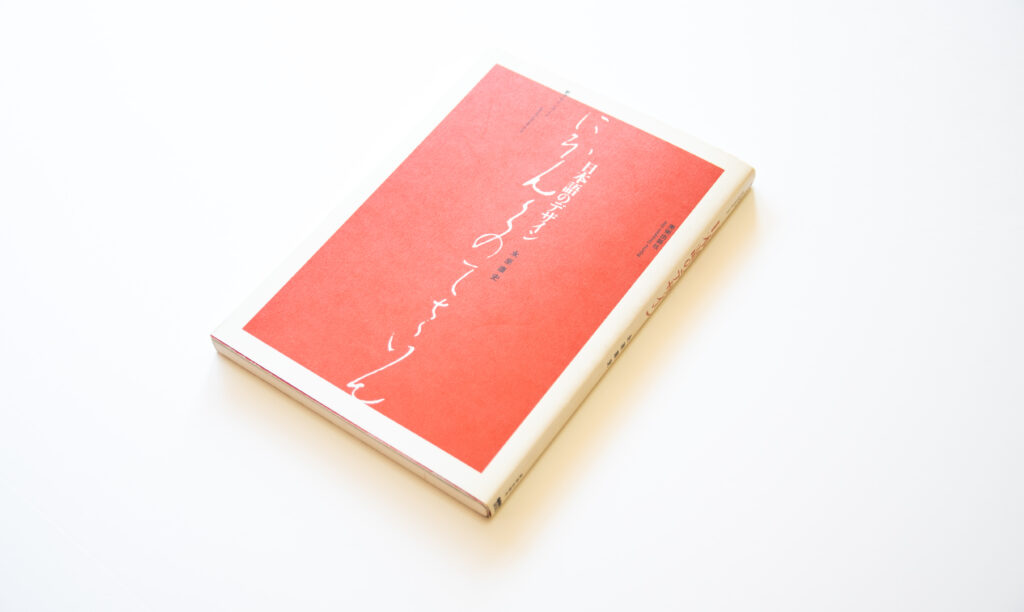
This book teaches us the design behind Japanese language and its flow to the present day. From the beginning, when there were no characters for Japanese, onwards, the content of this book studies Japanese from various perspective including typeface, text content, paper composition, readership, and printing techniques.
What I found interesting as a person who lives in the present and doesn’t have particular sense, is the close relationship between typeface and content. The book indicates that content related to politics and religion is written in block style, and content related to art, literature, and lifestyle is written in cursive style. The abolishment of using different styles for different purposes and the detailed transition to the current typesetting of Mincho typeface and Gothic typeface are also described.
This book is recommended as an introduction to positioning for any person who is involved in the design of Japanese language, and what Japanese has lost and gained.
New Design Guide: Design of Japanese Language
Design of Japanese Language: Visual Culture History Seen from Characters